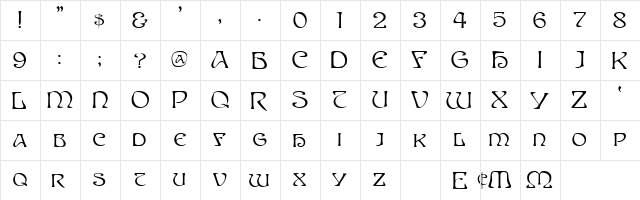
Sprite!" Regular
Design Context for Sprite!" Typeface
Sprite!" is a composed and adaptable typeface that performs quietly and consistently across a wide range of design contexts.